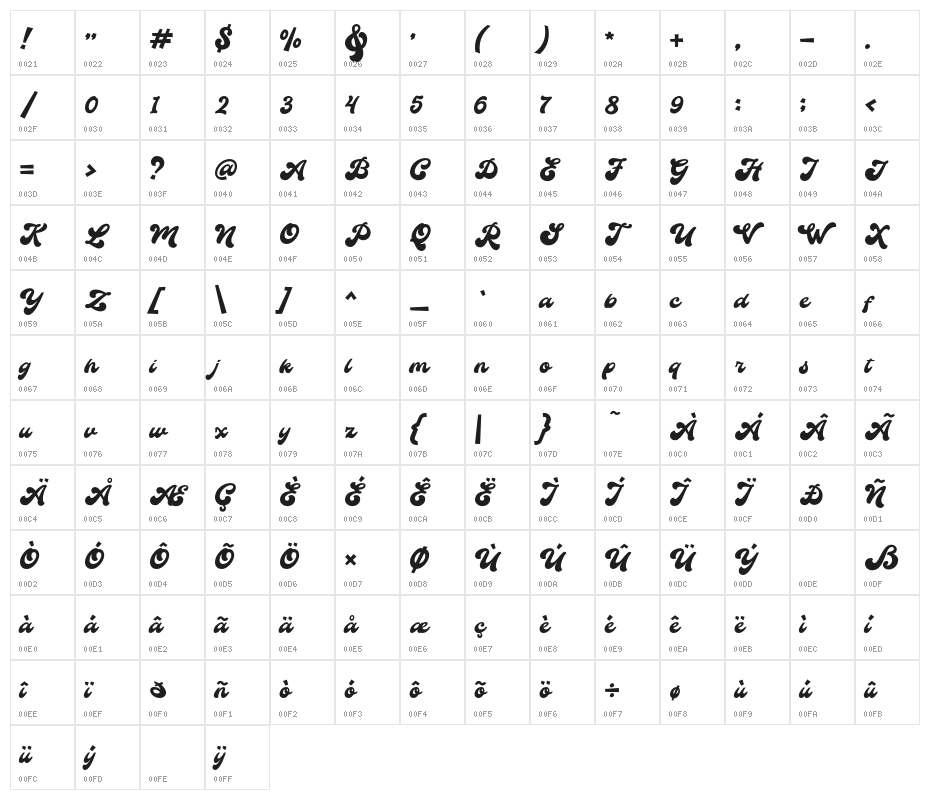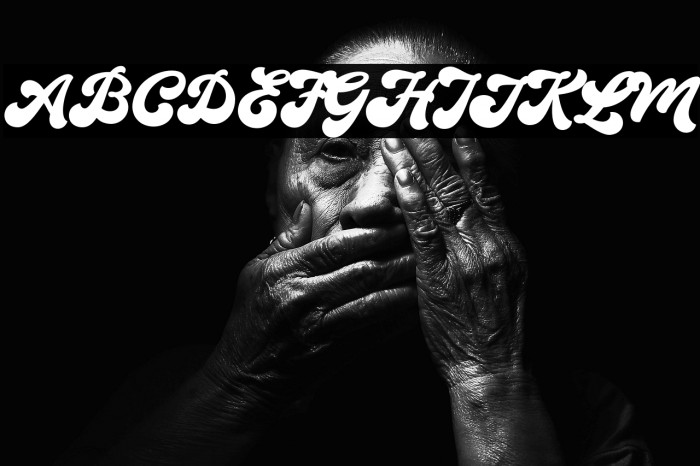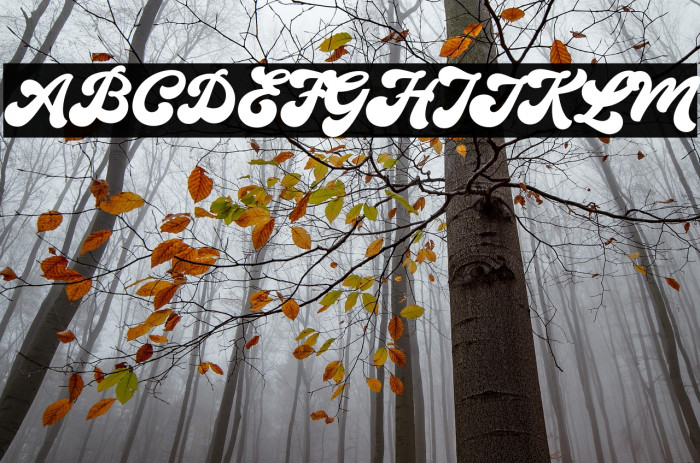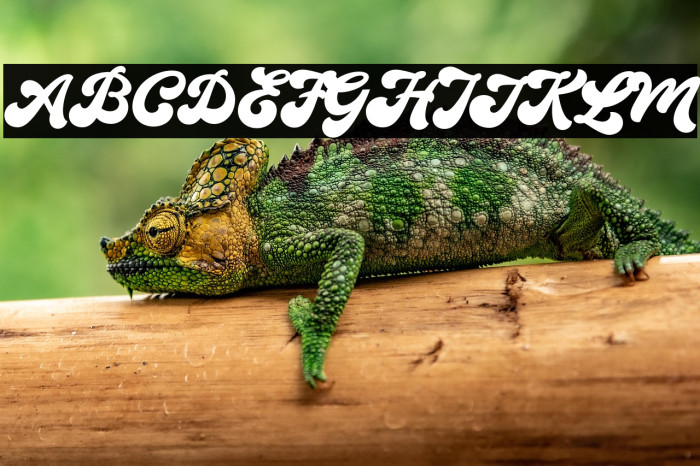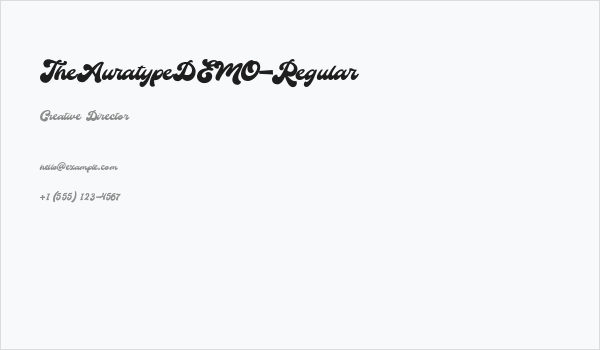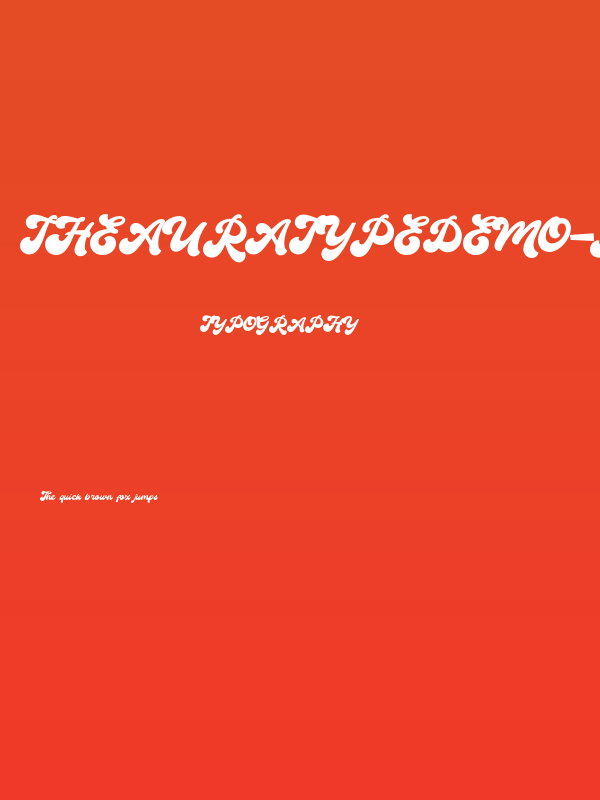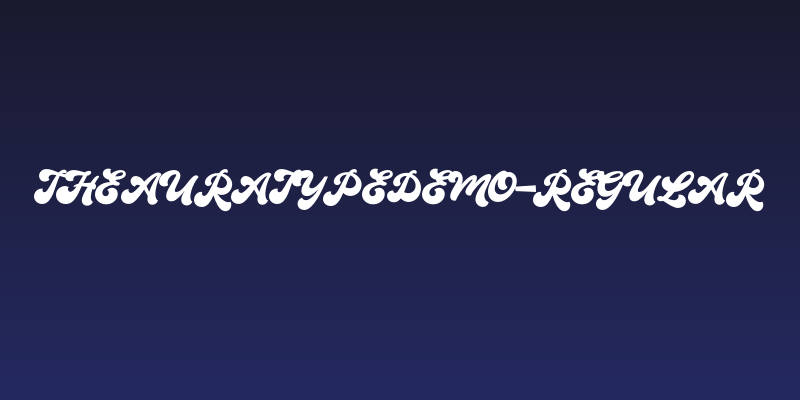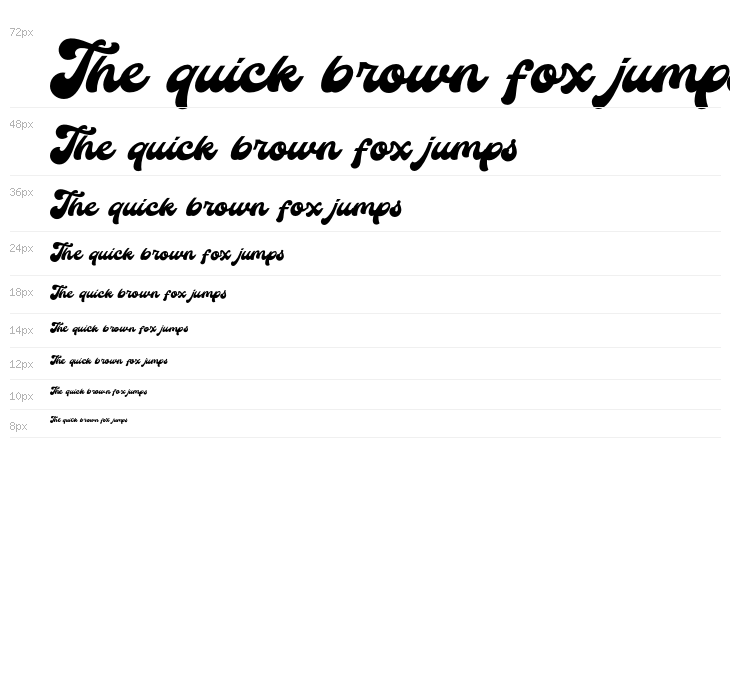
TheAuratypeDEMO-Regular Font
The Auratype is retro and classic typeface who inspired by the 60s - 80s designs with more unique explored style like swosh and alternate character. This font made from manual sketch with many many scratch then finished to font. Make your designs project